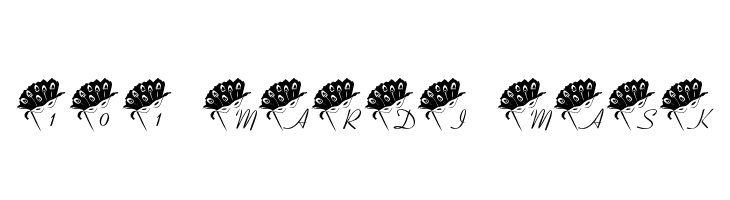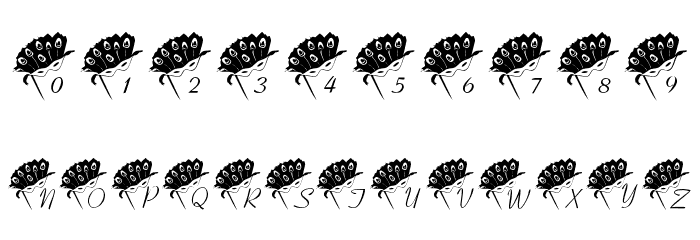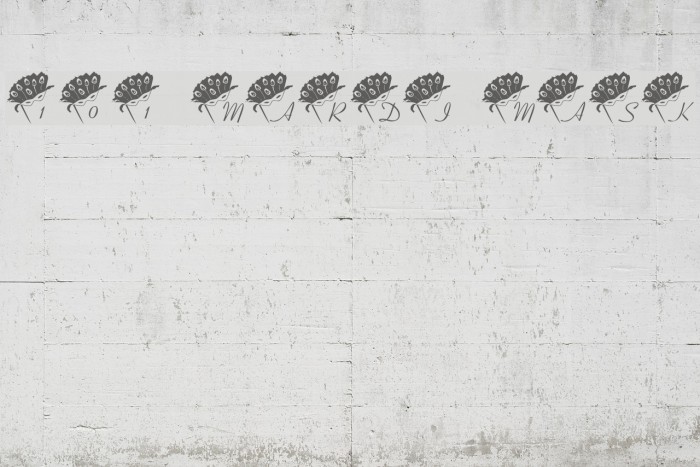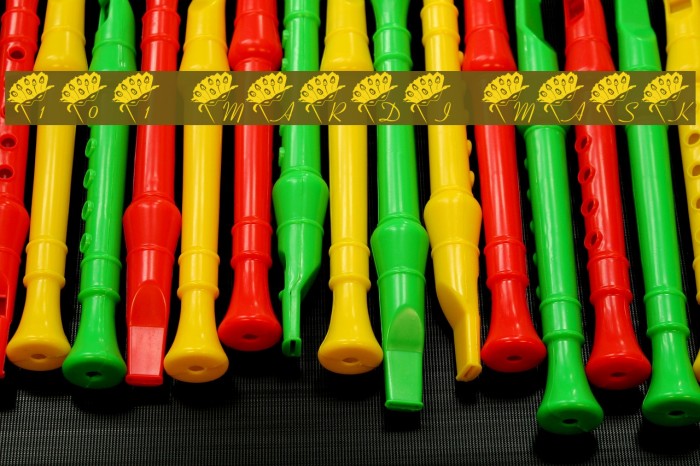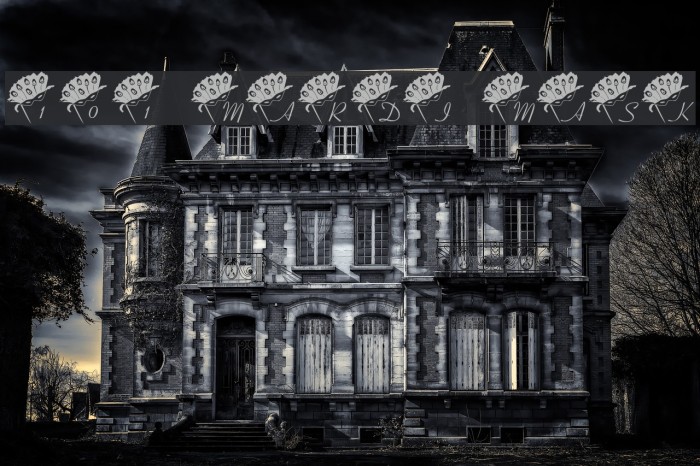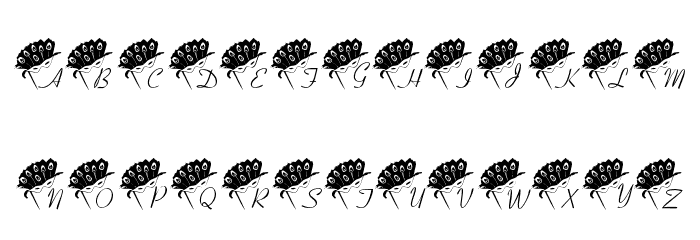
101! Mardi Mask Font
101! Mardi Mask Description
This font features an elegant and whimsical design, incorporating a decorative mask motif above each character. The letters are crafted in a delicate script style, with smooth, flowing lines that convey a sense of grace and sophistication. The uppercase and lowercase letters maintain a consistent style, enhancing the font's cohesive appearance. The numbers and special characters are also adorned with the mask design, adding a unique touch to the overall aesthetic. This font is ideal for projects that require a touch of elegance and creativity, such as invitations, branding, and artistic designs.
An elegant script font with a decorative mask motif above each character from Uncategorized fonts.